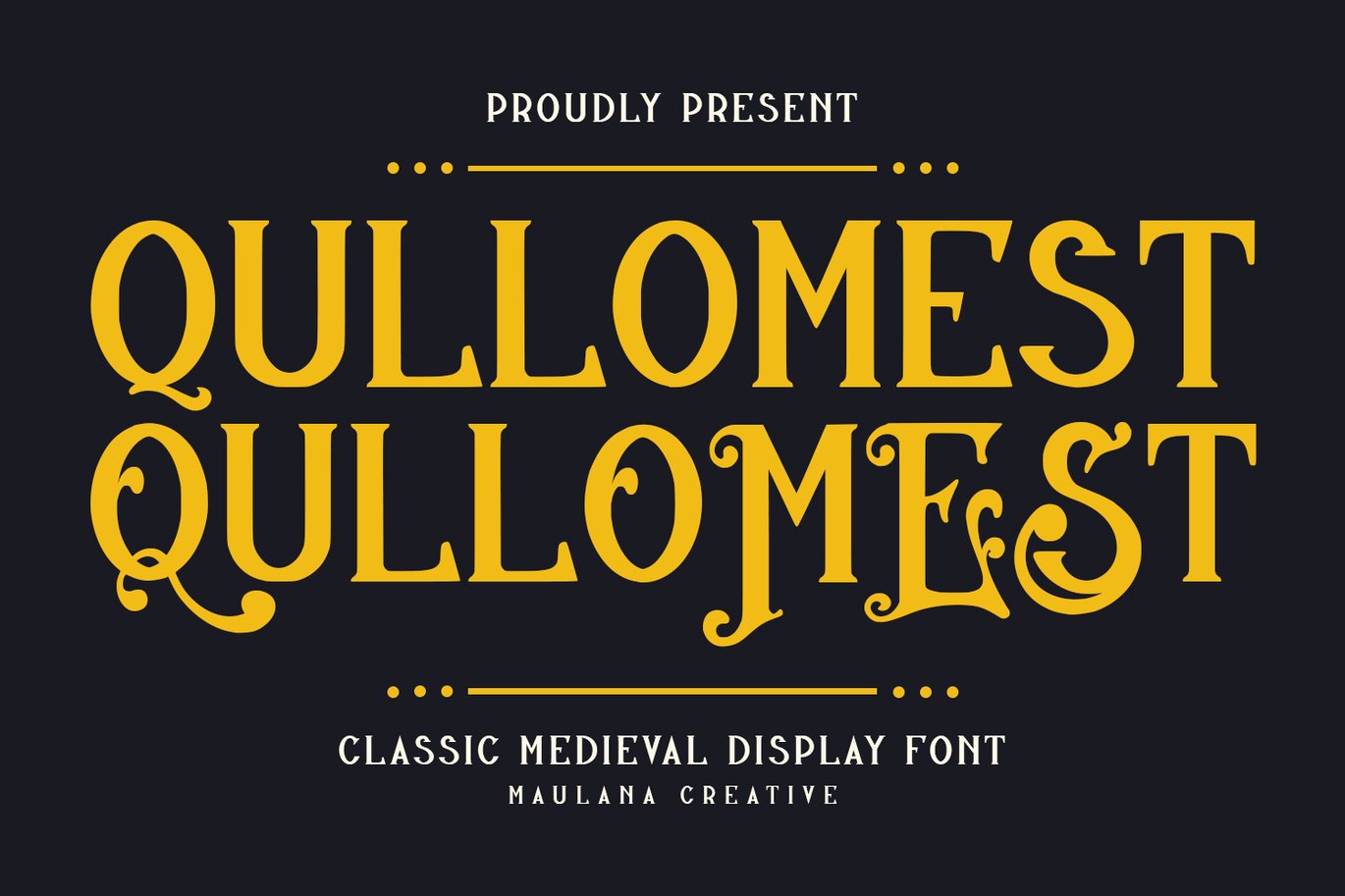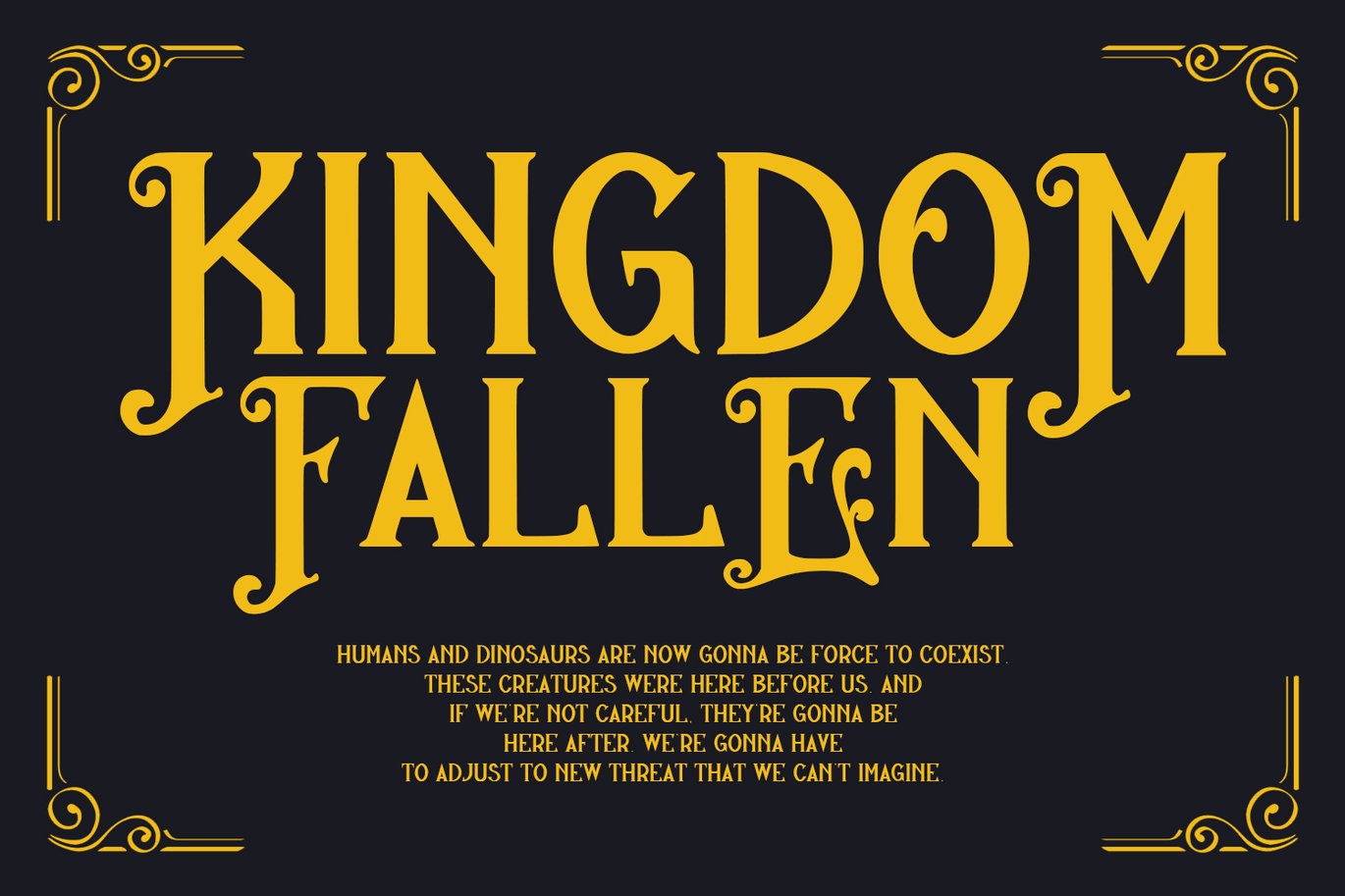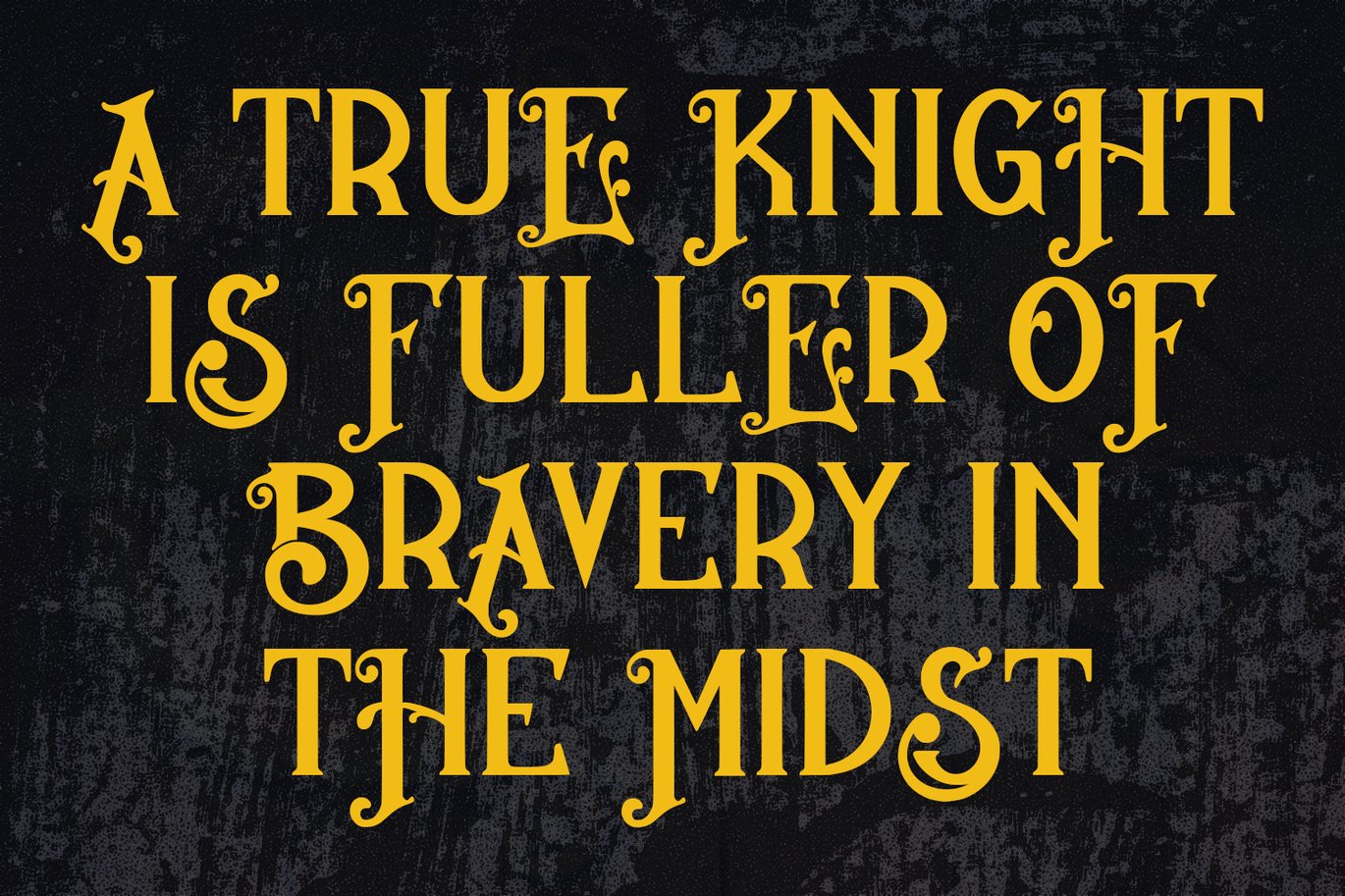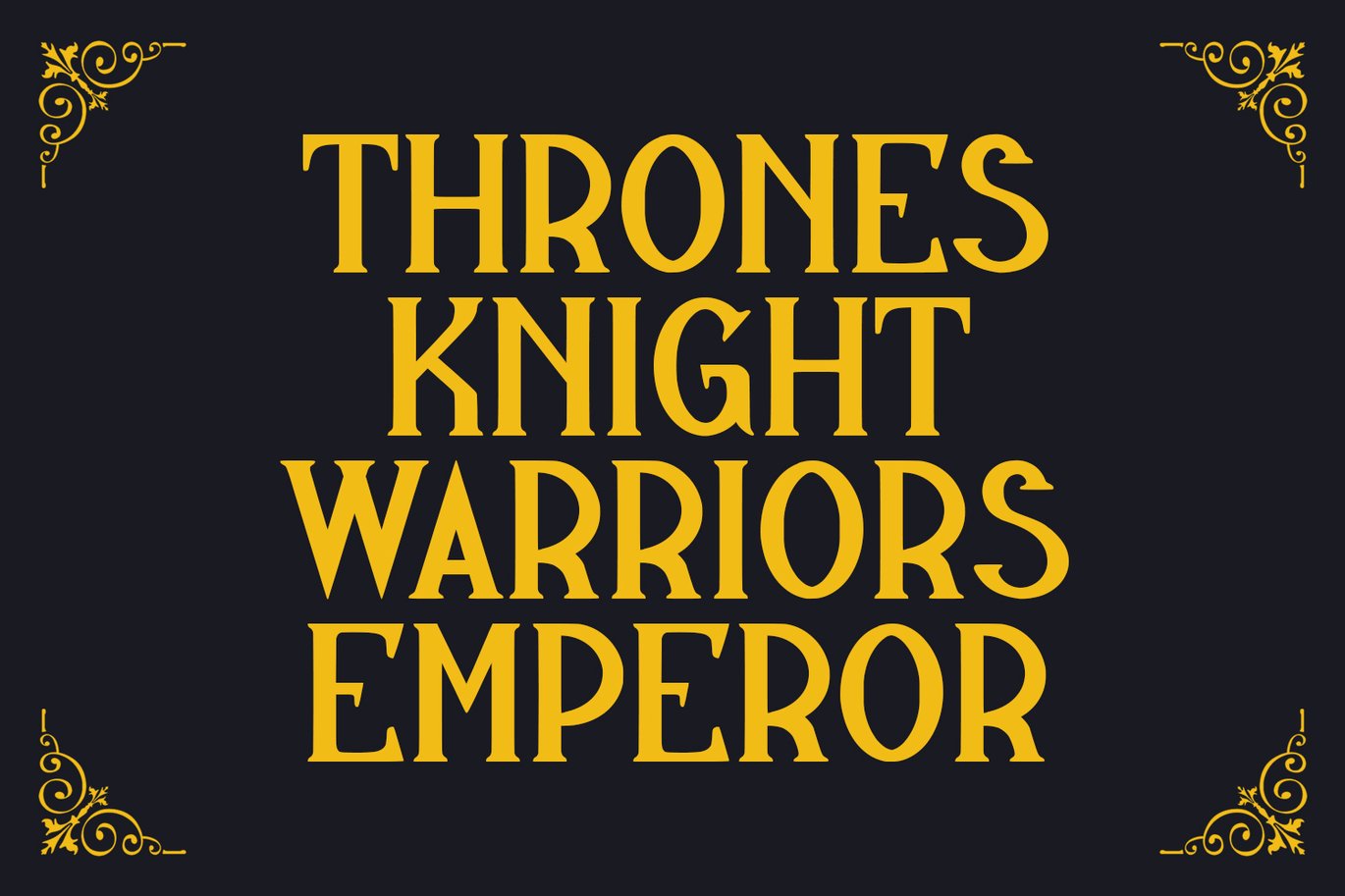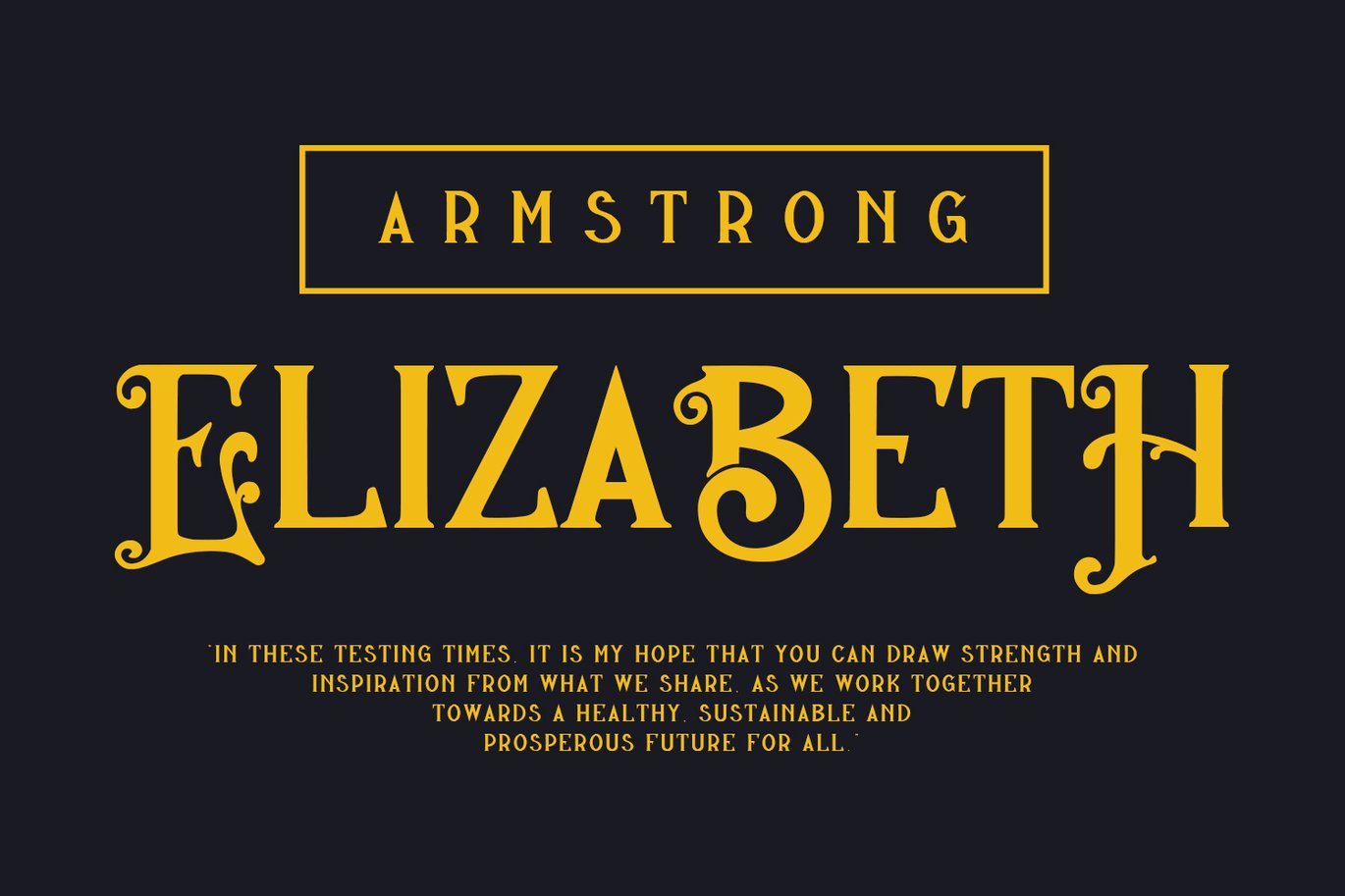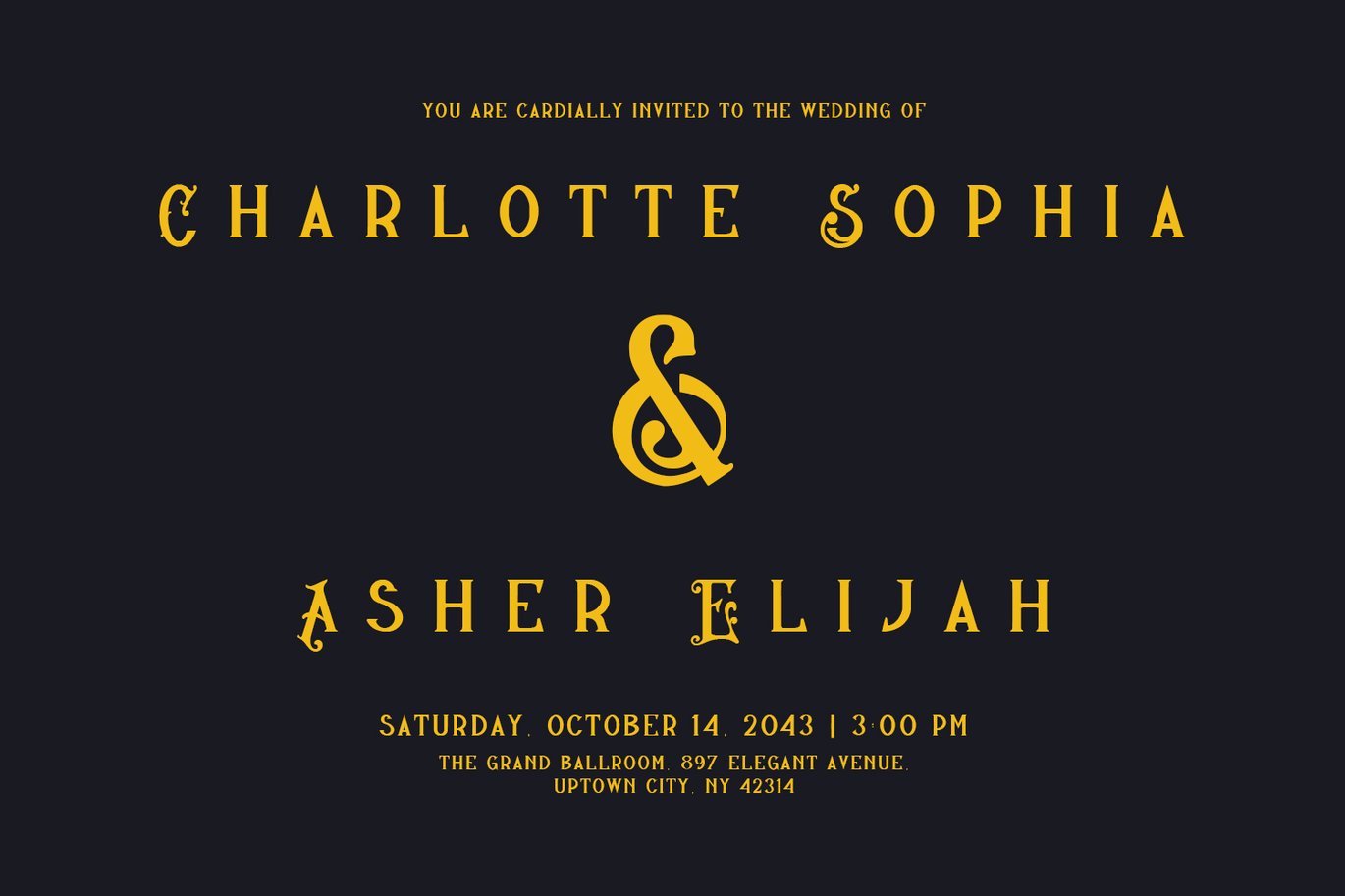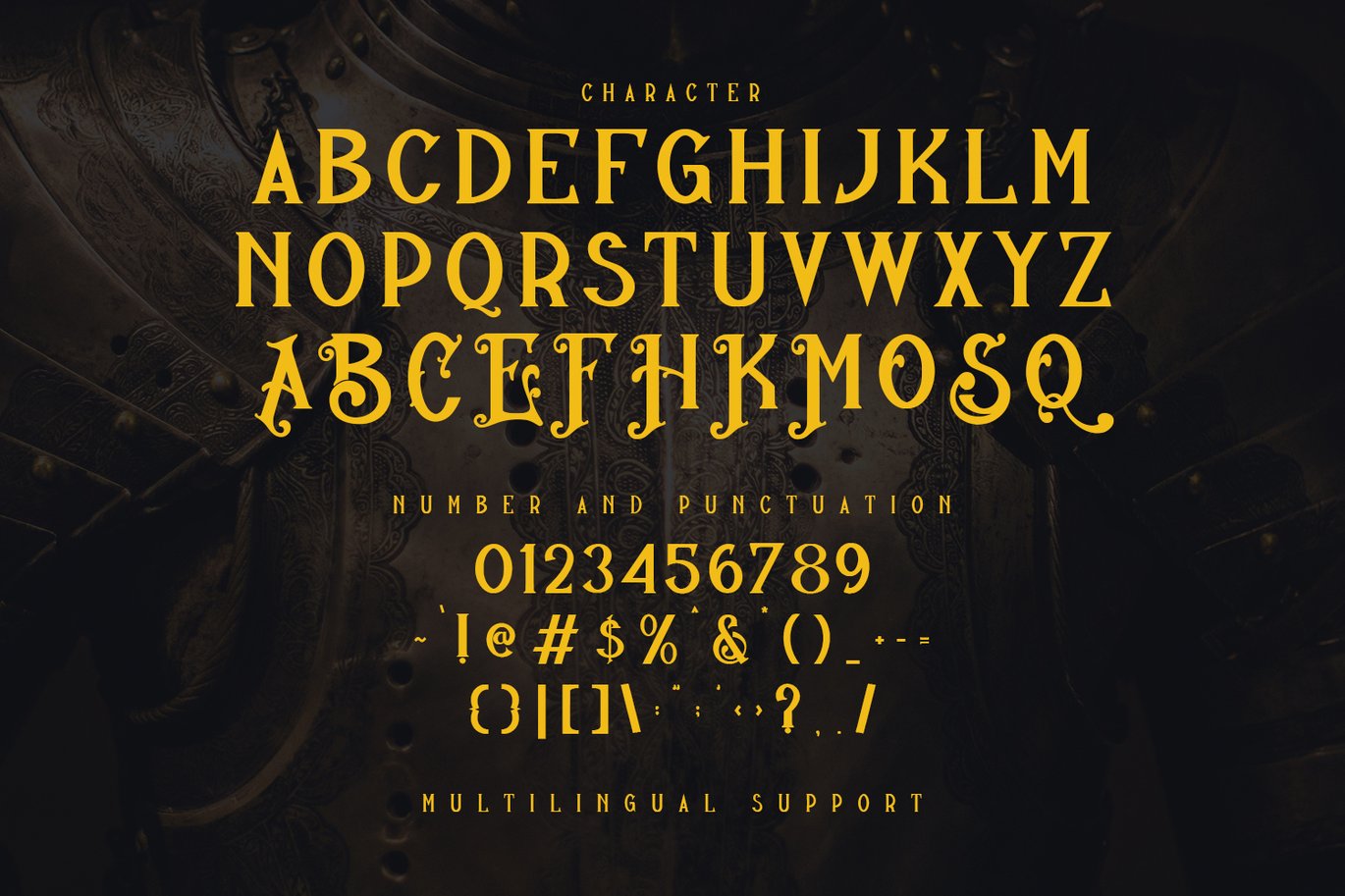
Qullomest Classic Medieval Display Font
Qullomest is a experimental classic serif display font. Bold stroke, fun character with a bit of alternates. To give you an extra creative work. Qullomest font support multilingual more than 100+ language. This font is good for logo design, Social media, Movie Titles, Books Titles, a short text even a long text letter and good for your secondary text font with script or serif. Make a stunning work with Qullomest font.